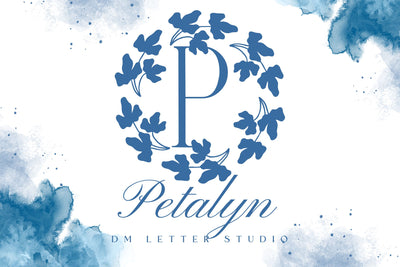
Petalyn Monogram
Petalyn Monogram – Elegant Serif Monogram with Petal-Inspired Flourishes
Petalyn Monogram is a graceful serif monogram font that blends timeless elegance with soft botanical charm. Each uppercase letter is adorned with subtle petal-like embellishments, evoking the beauty of a blossoming garden. Ideal for wedding invitations, logos, feminine branding, and handmade crafts, this font adds a touch of refinement to any personalized design.
Elegant Serif Letters: Classic, sharp serif structure for a polished and timeless appearance.
Petal-Inspired Accents: Delicate floral motifs enhance each letter with a gentle, organic touch.